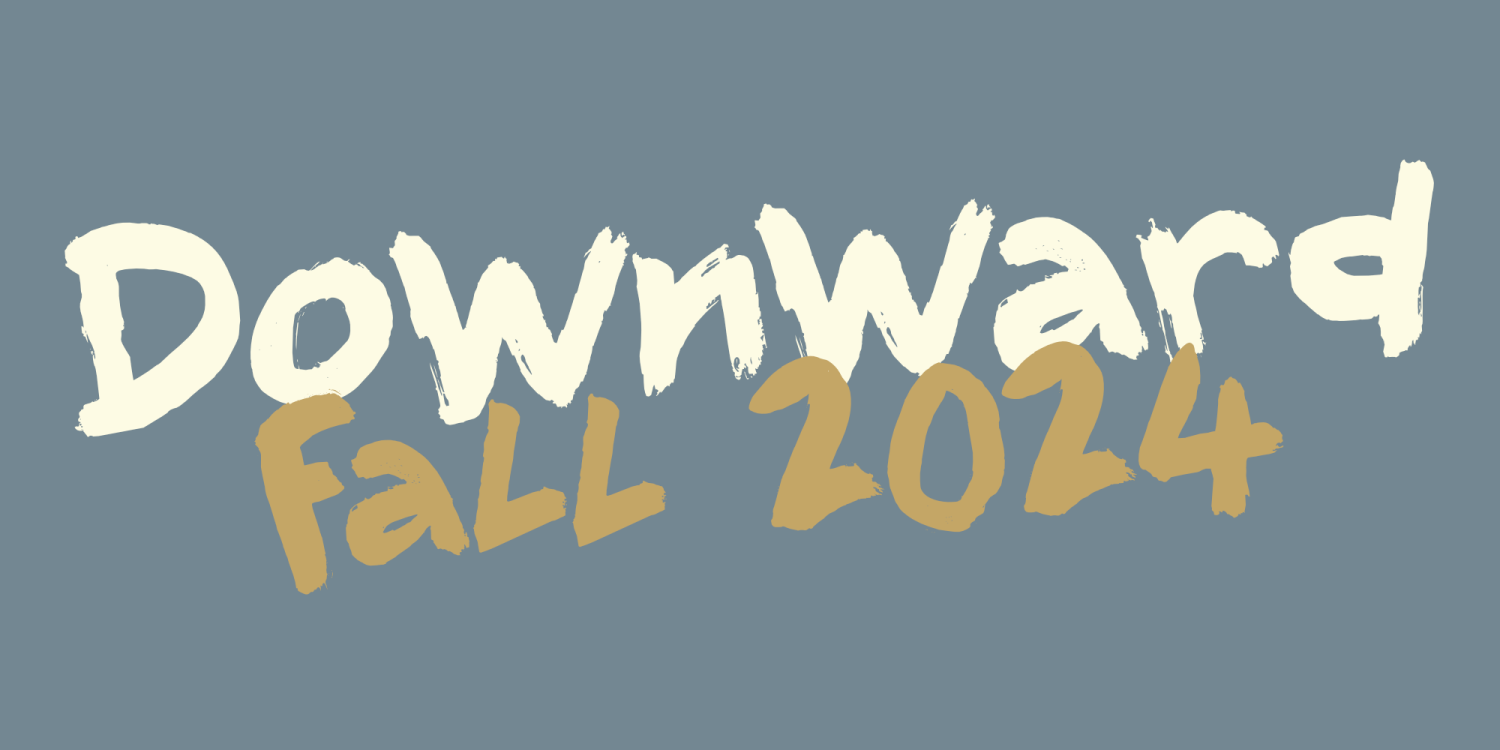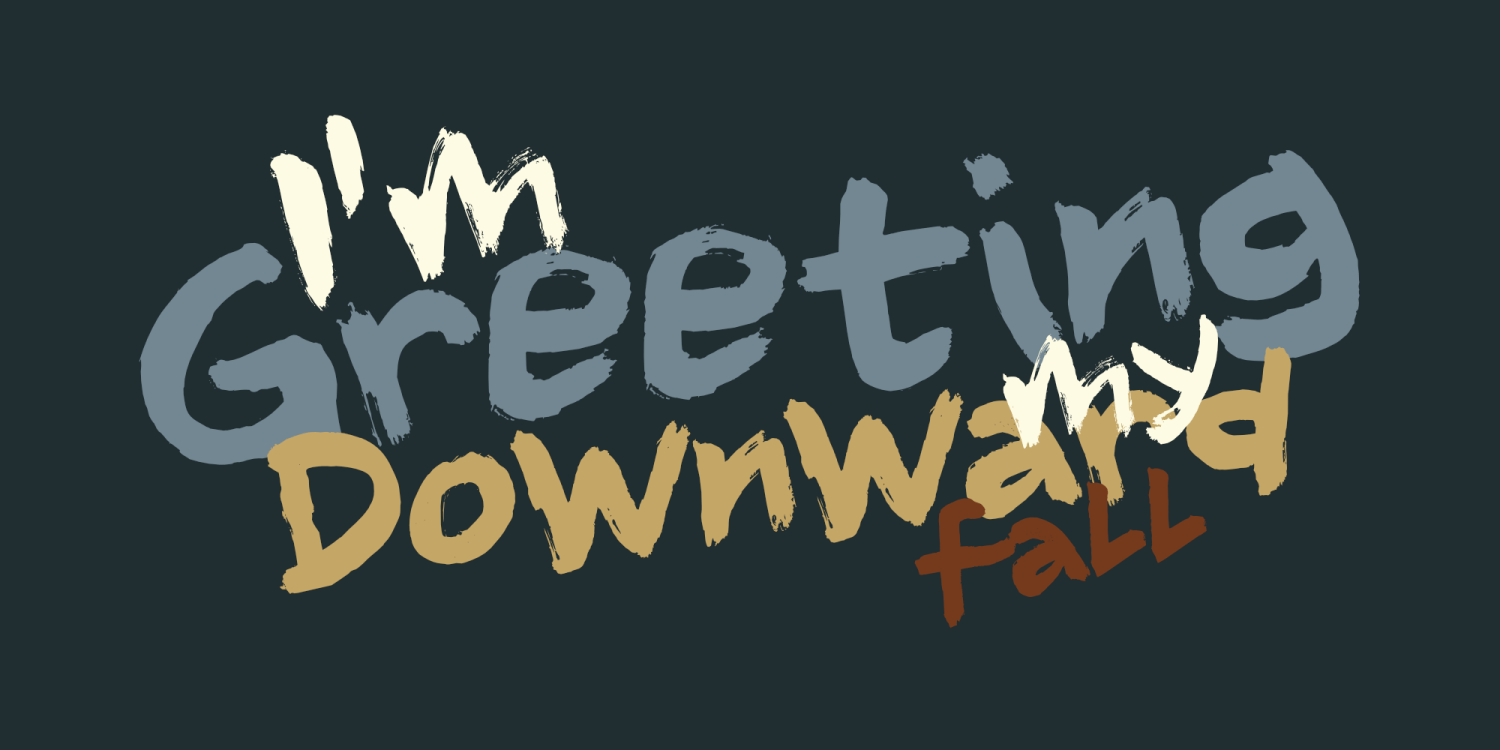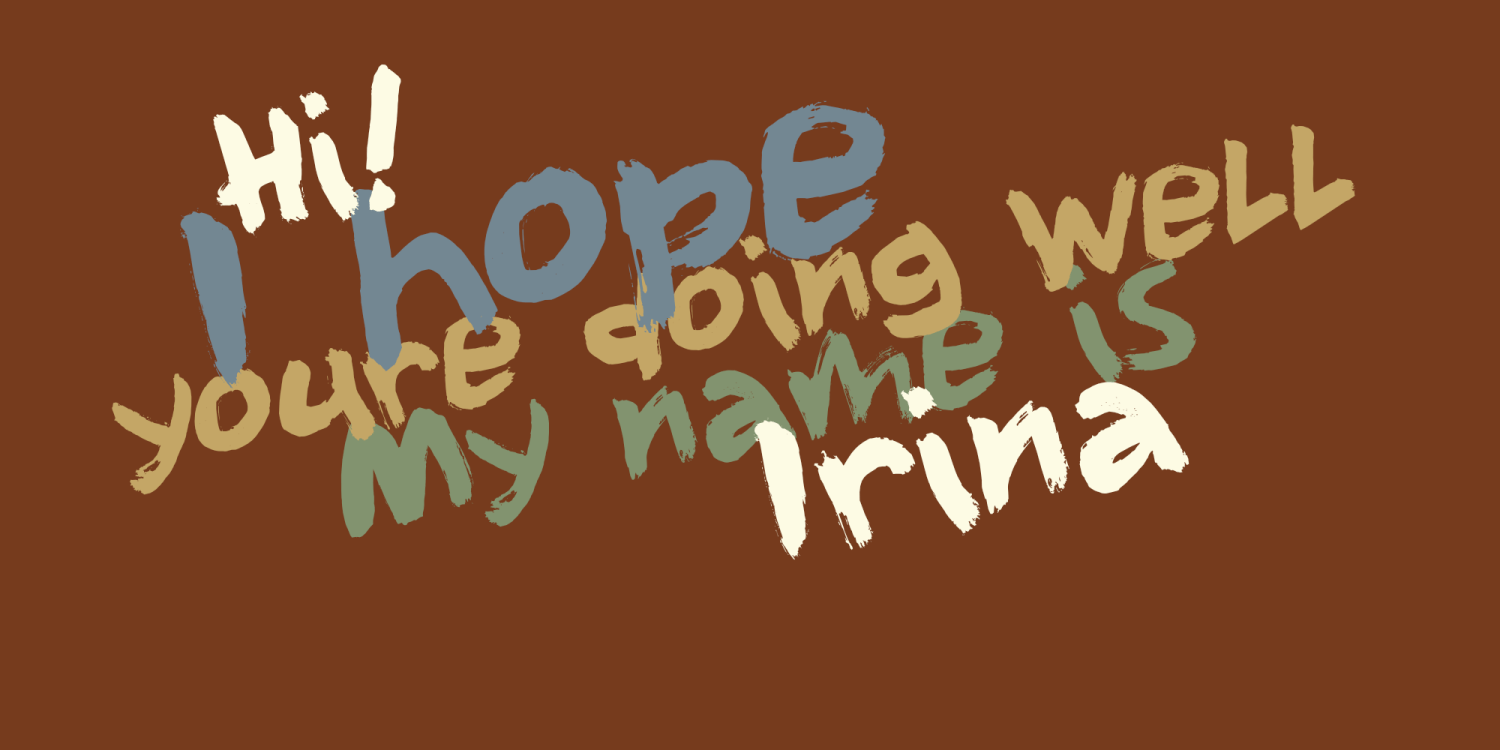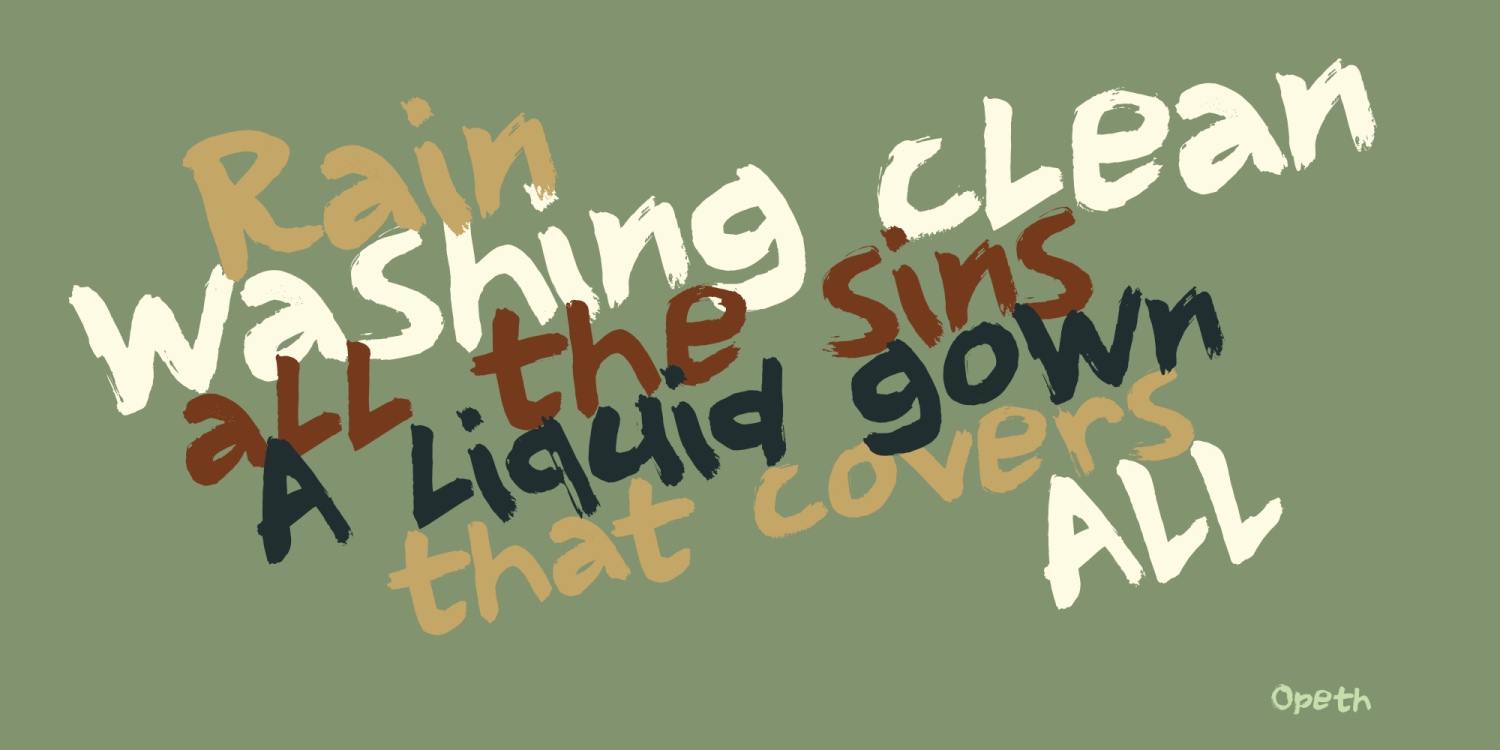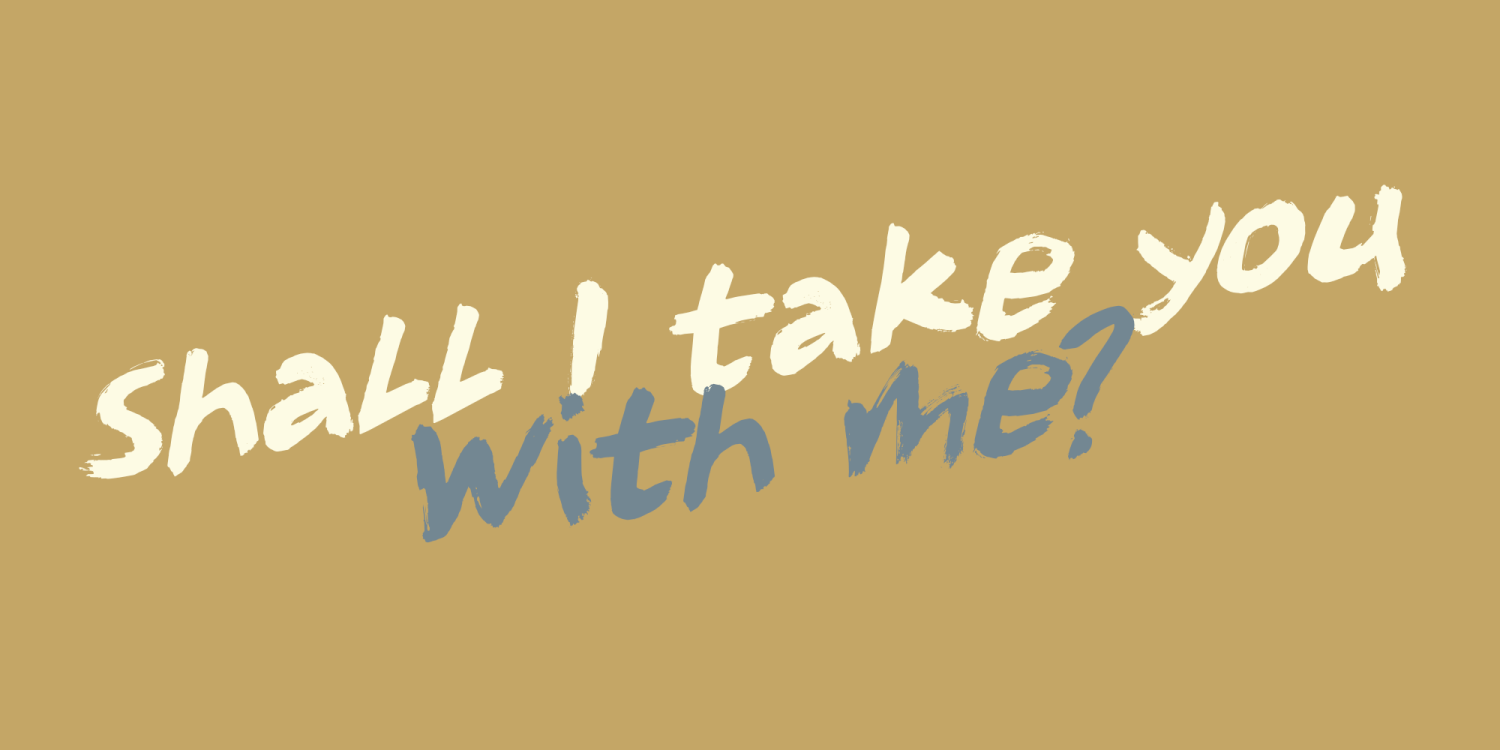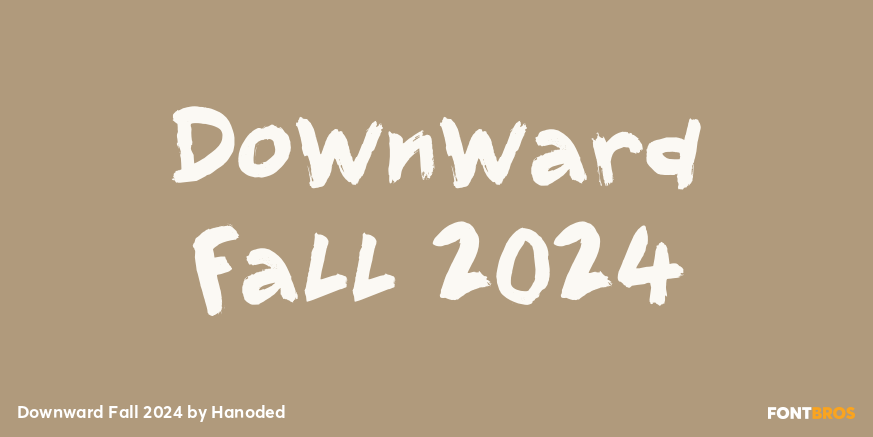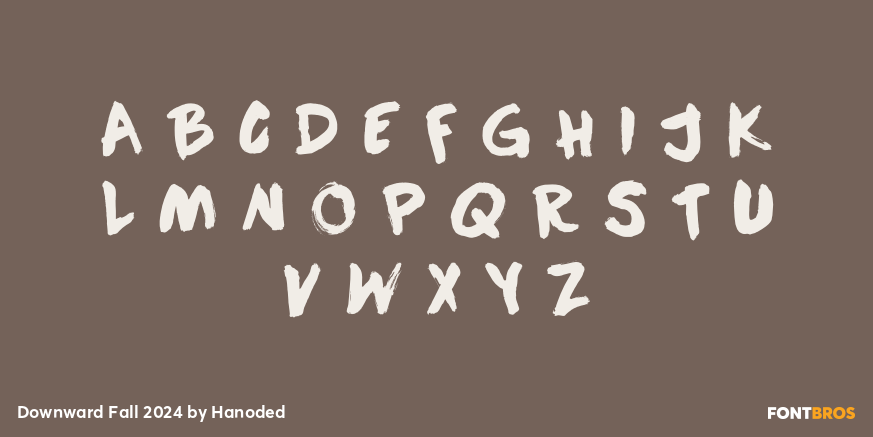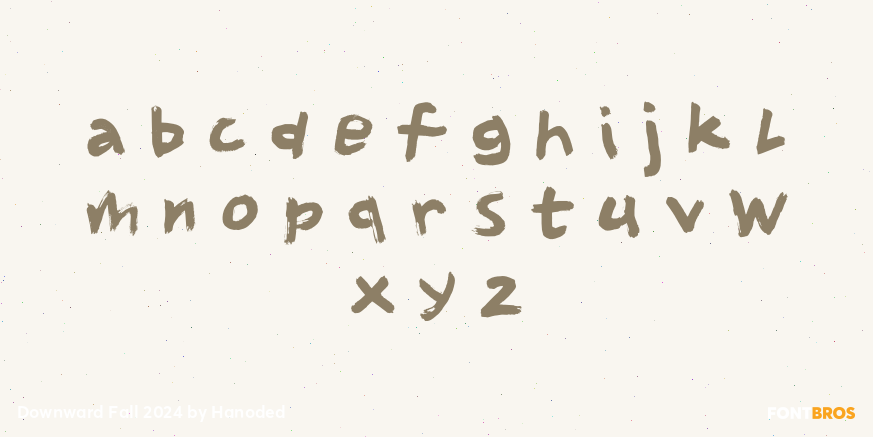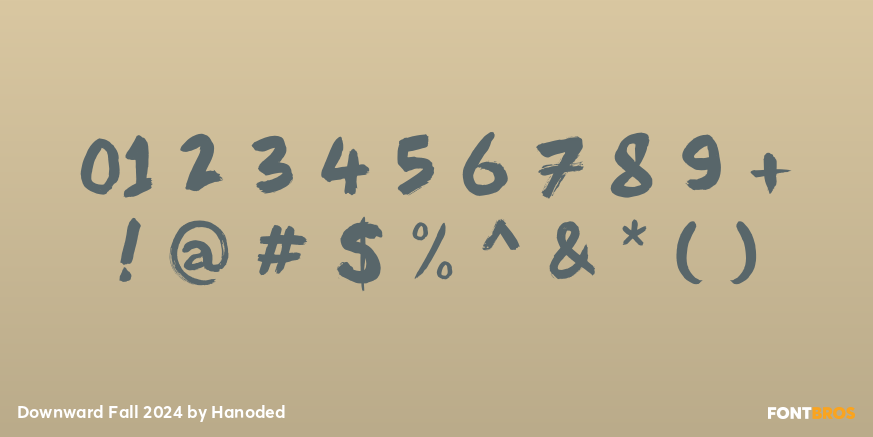
Downward Fall 2024
Back in 2014 I made a nice brush font called Downward Fall. I haven’t touched it since, but ten years later I thought it would be a good idea to release an update. Downward Fall 2024 is like the original, but it comes with extensive language support and ‘real’ lower case letters. You can use both fonts at the same time - that is why I named the new one Downward Fall 2024.